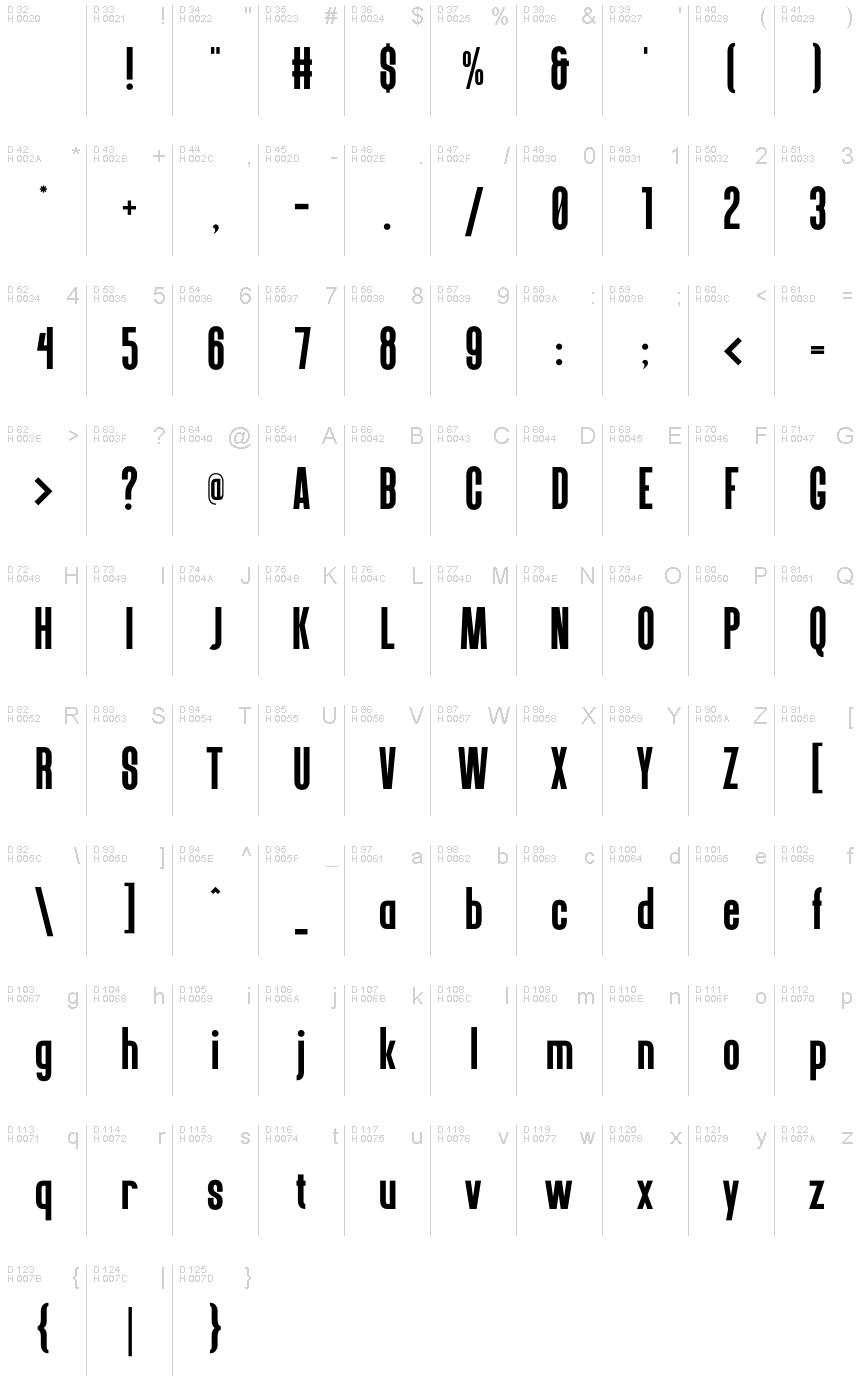
Brownland
Brownland, a sleek creation by BrandSemut, stands out with its condensed sans serif style, offering a contemporary twist to the typographic landscape. The streamlined letters of Brownland boast an elegant simplicity that captures attention without overwhelming the senses.
Its narrow profile allows for efficient use of space while maintaining readability, making it an excellent choice for both print and digital media that require a touch of modern sophistication. The condensed font exudes a sense of purpose and clarity, perfect for designers seeking to convey messages with precision and style.